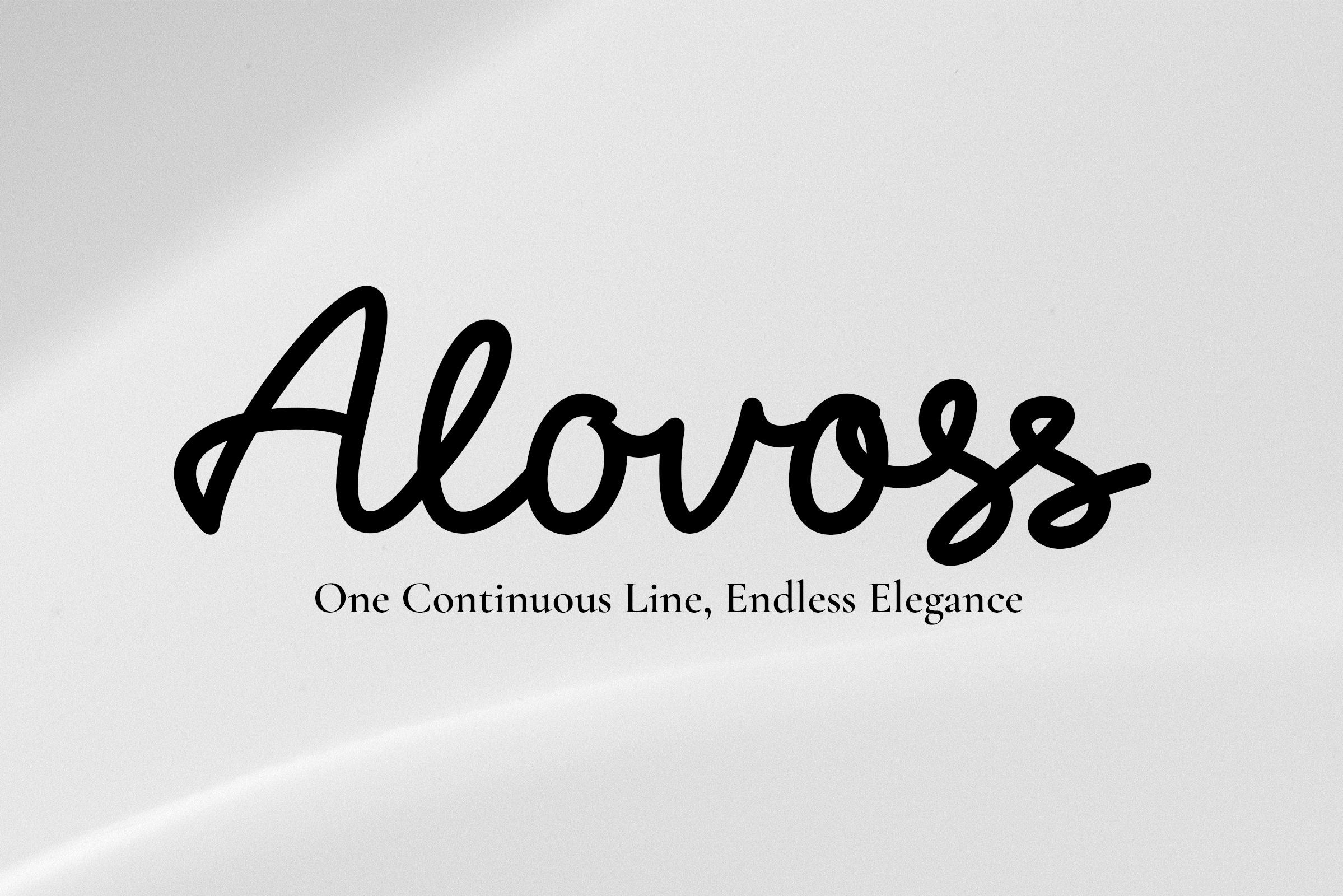
Alovoss - Monoline Script Font
Introducing Alovoss – An Elegant and Modern Touch in Every Line
Alovoss is a premium monoline script font precisely crafted to bring an aesthetic, clean, and fluid look to your designs. With its consistent line weight and smooth curves, Alovoss offers the perfect balance between casual modern vibes and professional elegance.